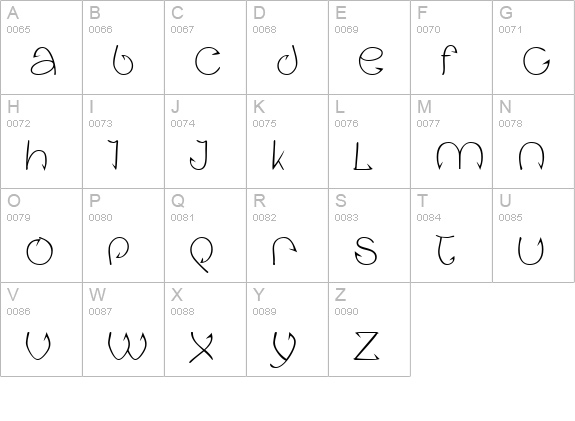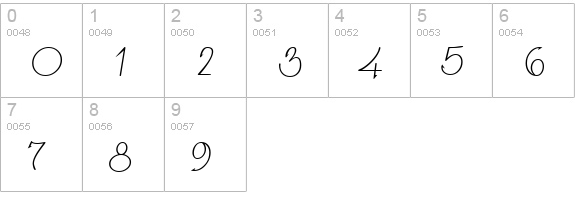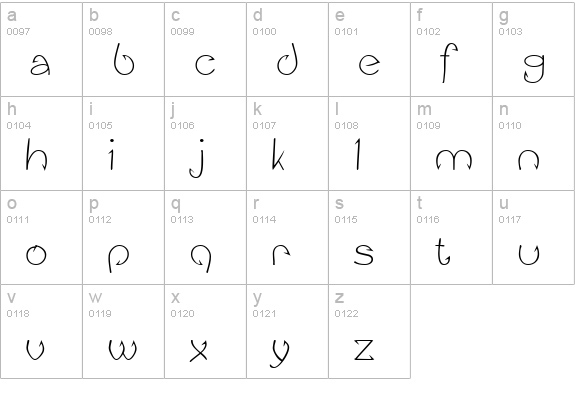
Fishhook Font Details
Fishhook font is a whimsical and playful typeface that adds a touch of fun to any design project. With its unique curves and hooks, this font is sure to stand out and grab attention. Perfect for posters, invitations, and branding materials, Fishhook font brings a fresh and modern look to your designs. The best part? Fishhook font is completely free to download at FontsMarket.com. Simply visit the website and start using this eye-catching font in your creative projects today. Don't miss out on the opportunity to add a fun and dynamic element to your designs with Fishhook font, available for free at FontsMarket.com.